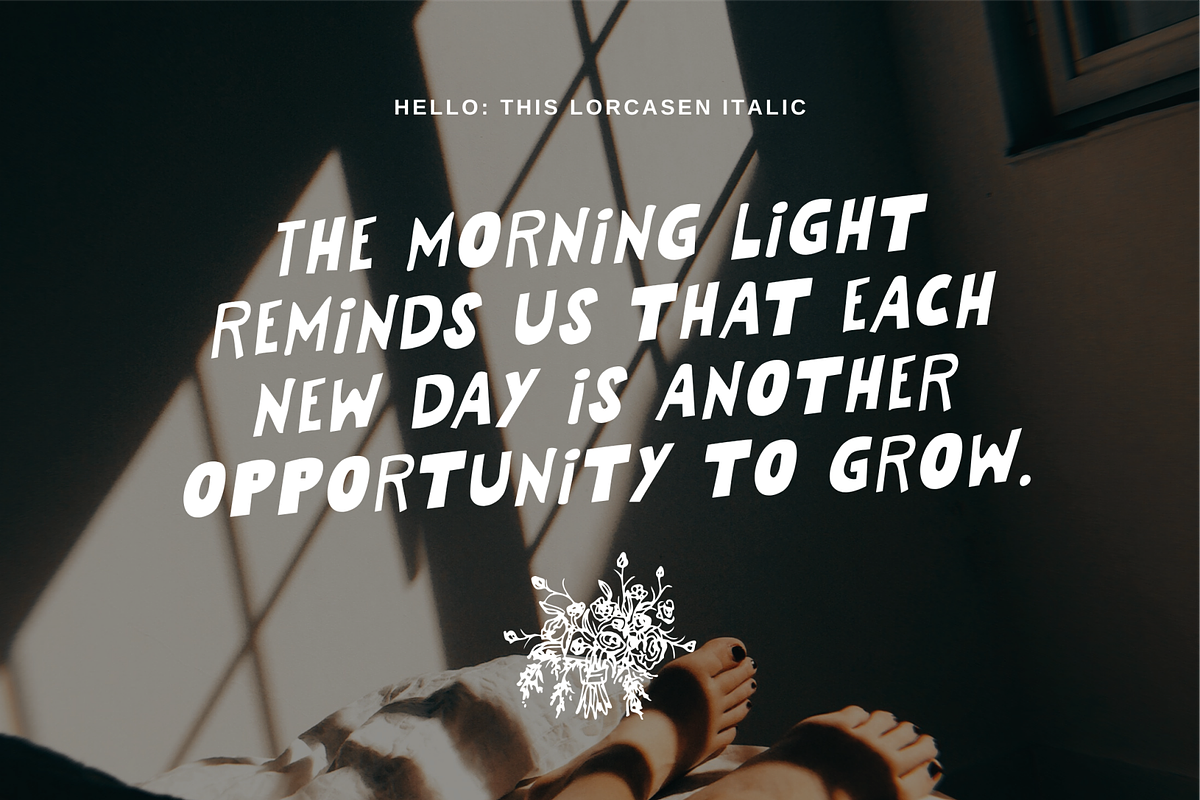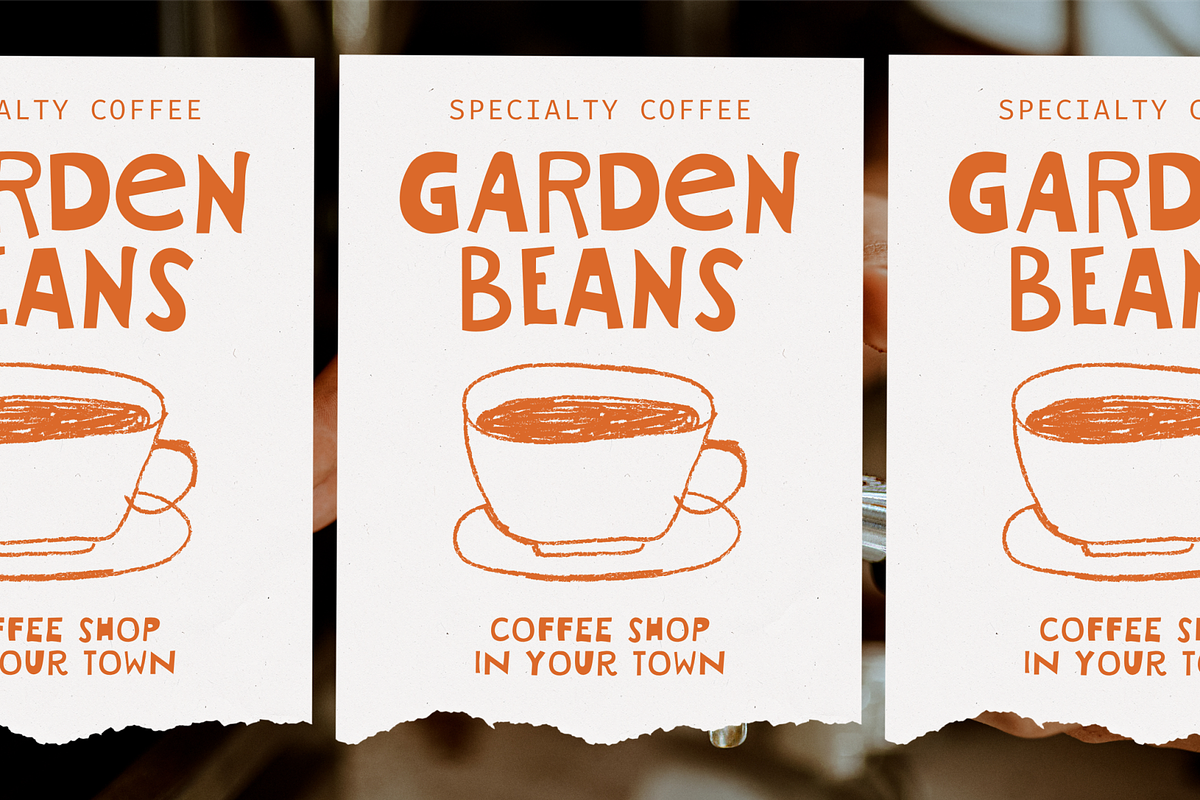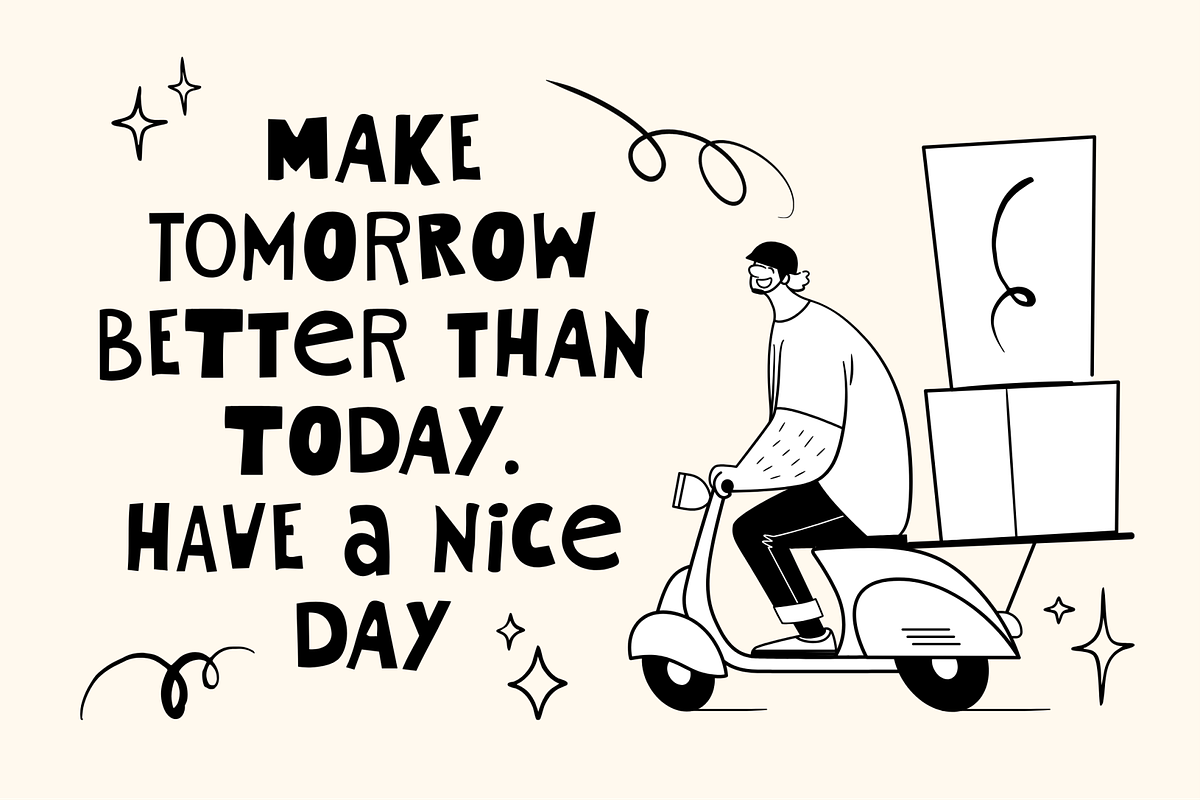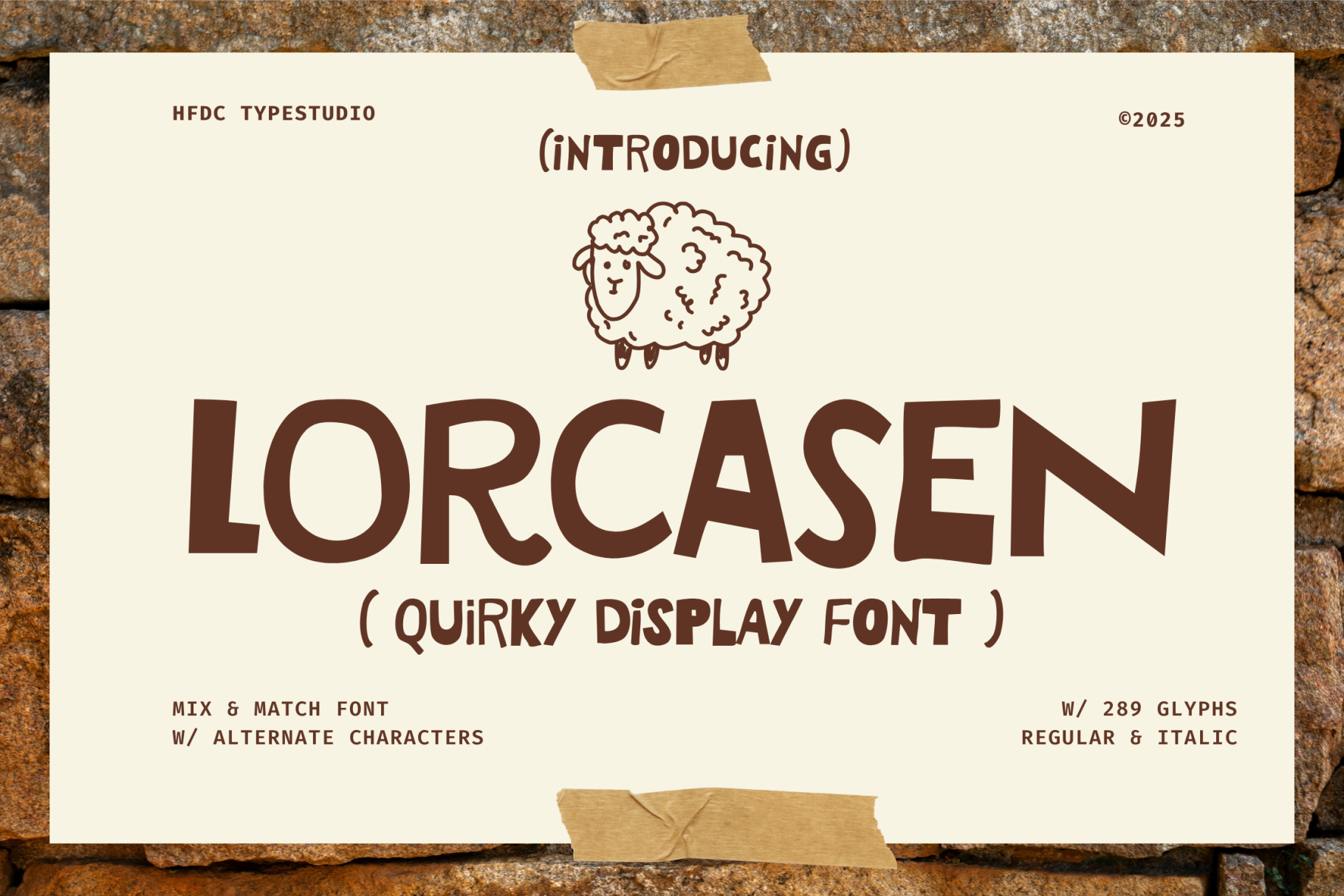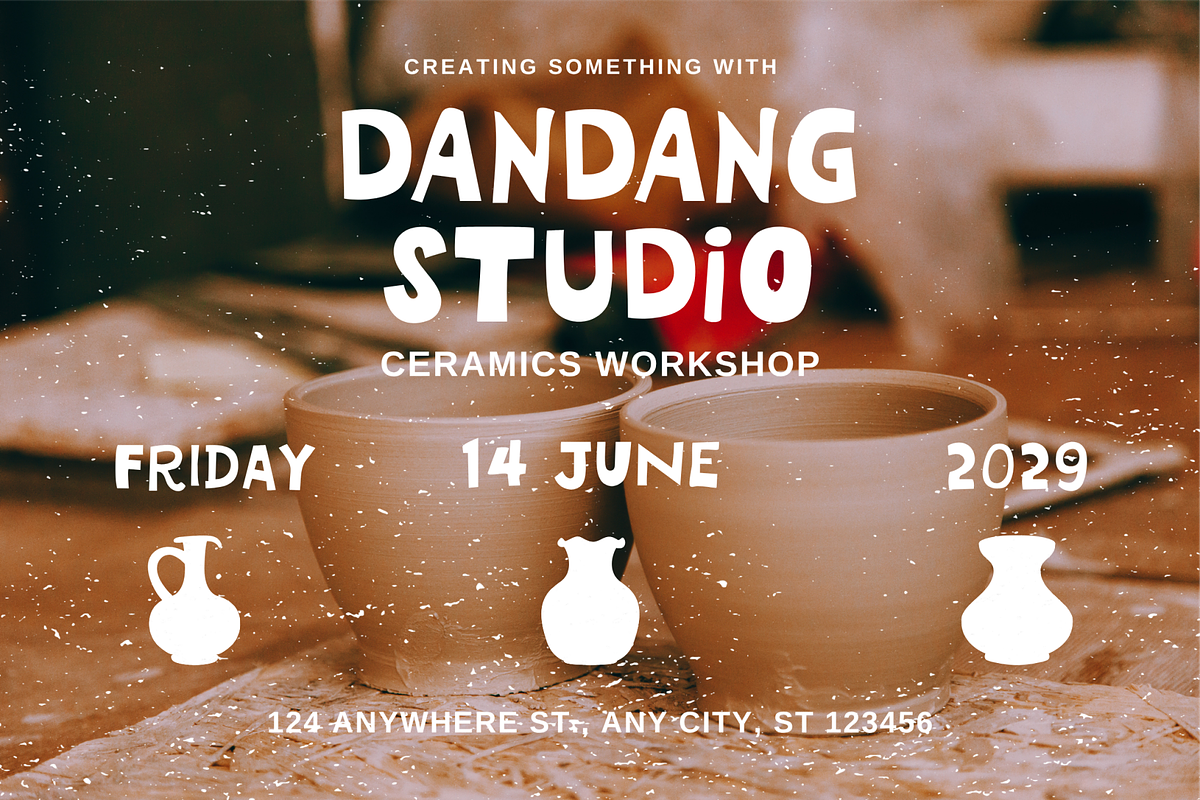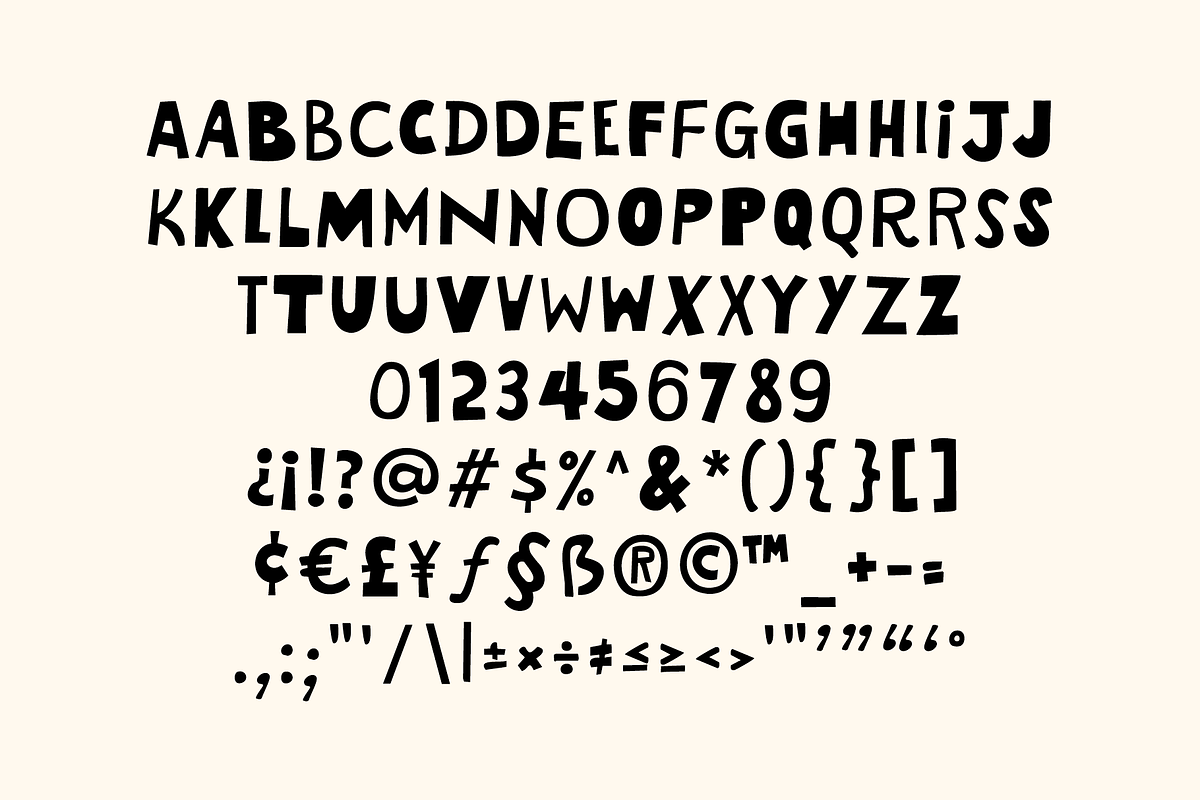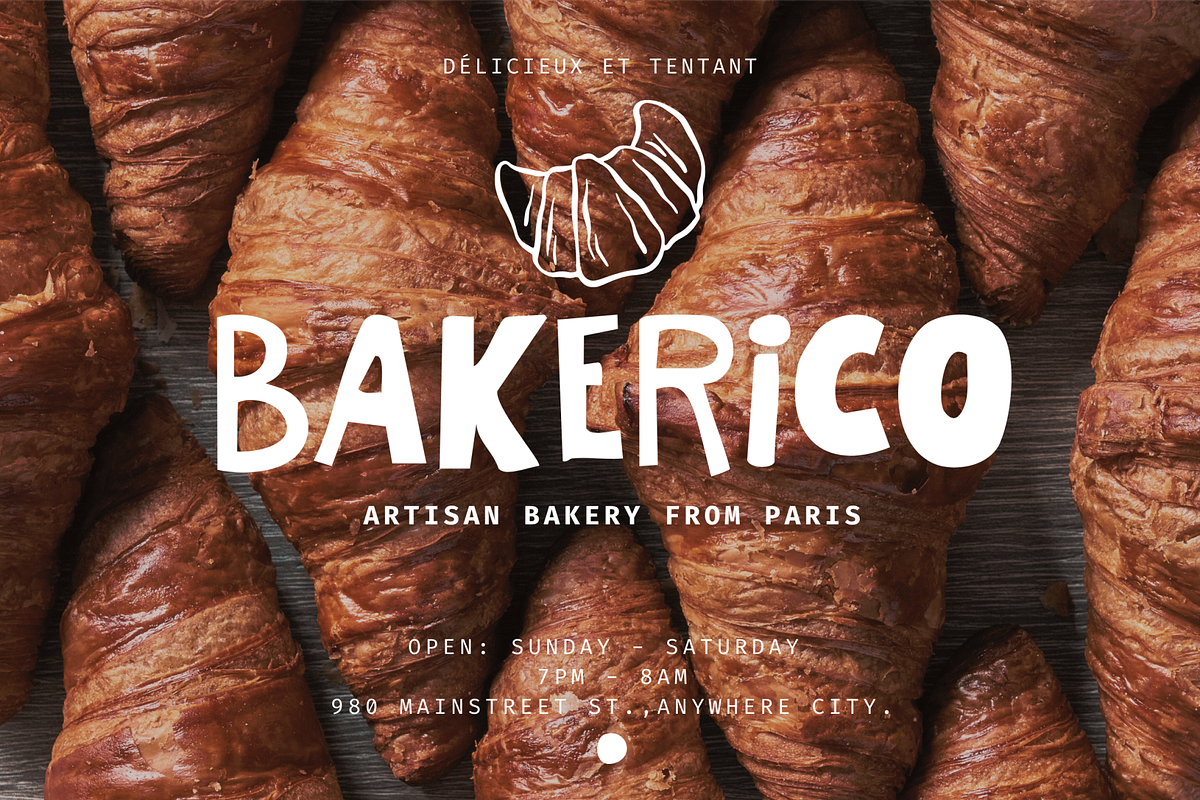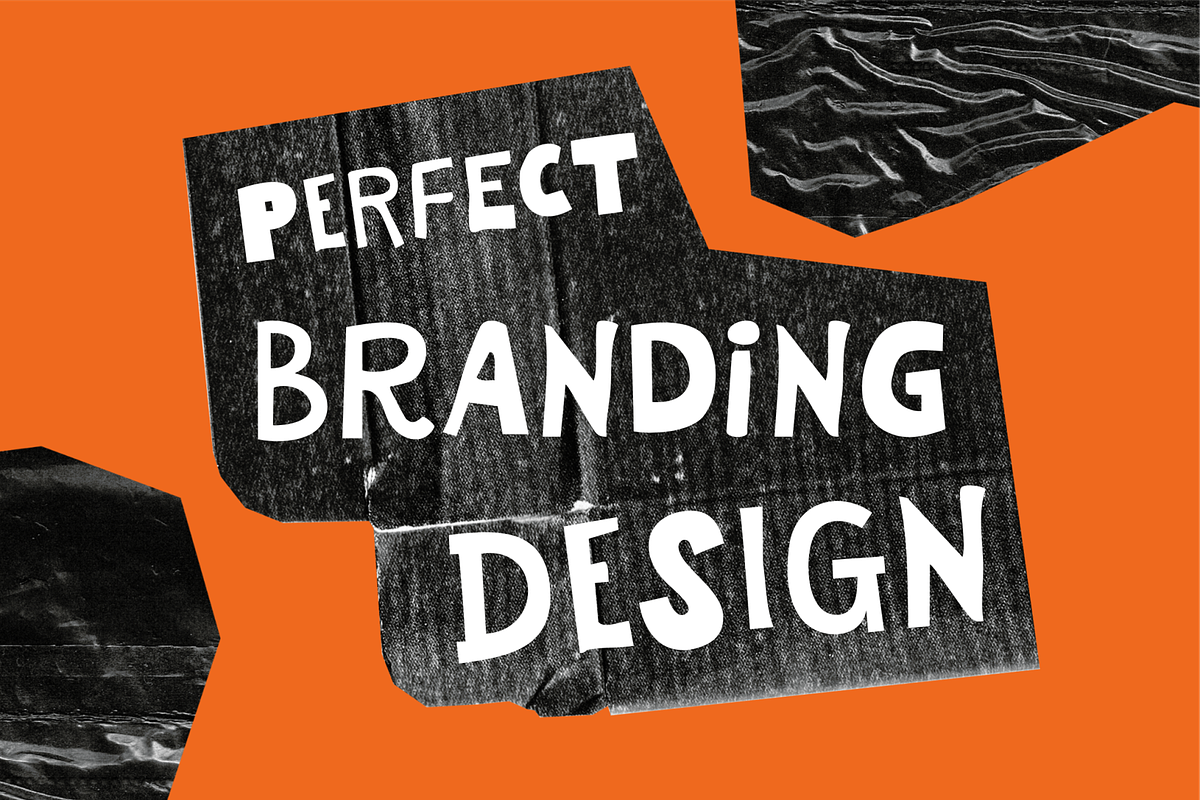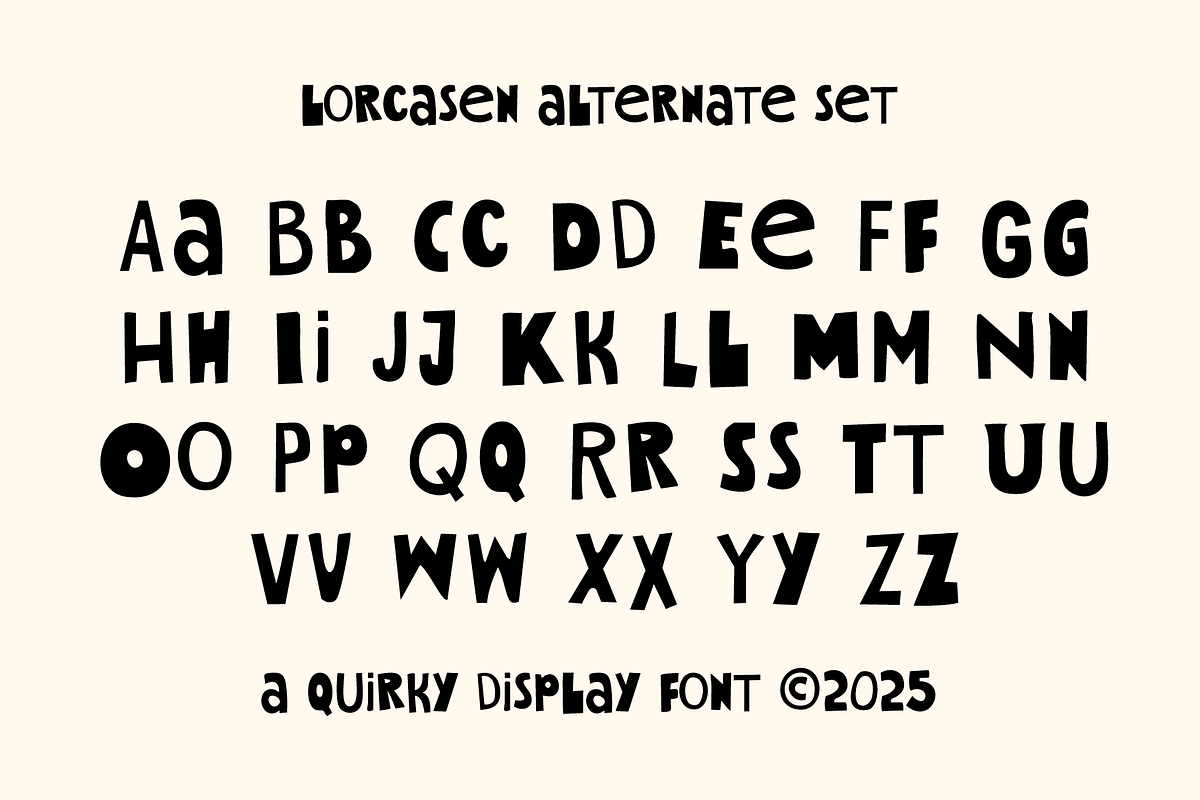
Lorcasen Quirky Mix Typeface
Introducing Lorcasen, a delightful handwritten font that captures the charm of hand-drawn artistry with its playful and quirky personality. Perfectly blending a sans serif structure with a brush-like feel, Lorcasen stands out with its messy yet captivating style, making it an ideal choice for eye-catching packaging, vibrant flyers, and memorable logos. With a glyphed set of over 250 characters, this font ensures versatility and creativity in your designs, allowing you to tailor your message across various languages and contexts.
Whether you’re crafting an engaging poster or a standout headline, Lorcasen brings an inviting warmth that speaks directly to your audience. Its stylistic alternates add a unique touch, giving your projects a personal flair while maintaining professional quality. Available in multiple file formats including TTF, OTF, WOFF, and WOFF2, Lorcasen is ready to elevate your branding and marketing efforts with ease and style. Embrace the playful spirit of Lorcasen and let your creativity flow.
Style: Regular & Italic
Uppercase & Lowecase
Number